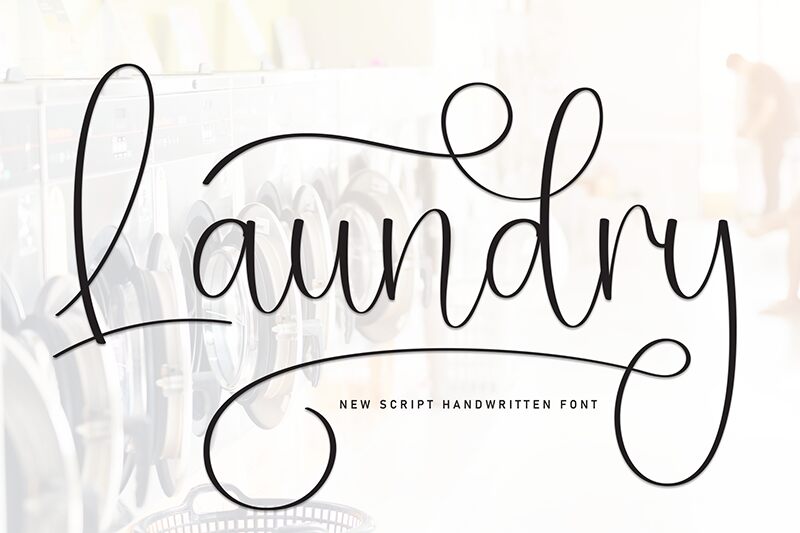
Laundry
Laundry font by Scratchones is a light calligraphy typeface with elegant and flowing strokes. Its script style has a contemporary feel that offers an expressive and decorative flair suitable for modern design aesthetics.